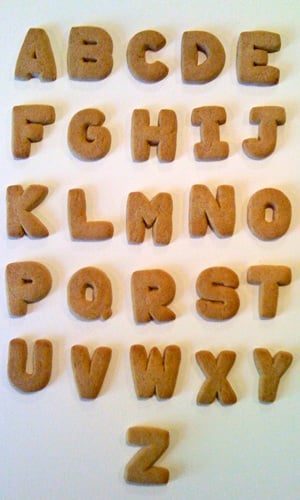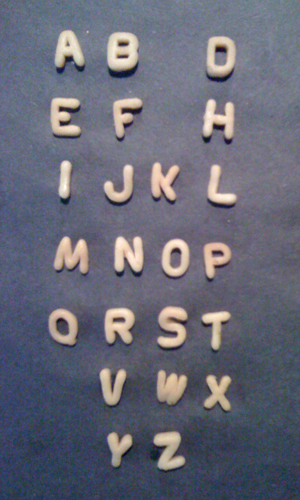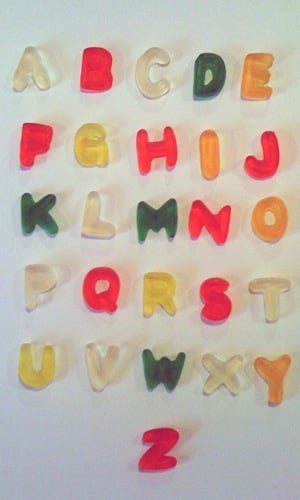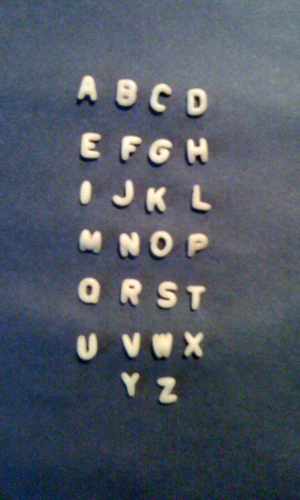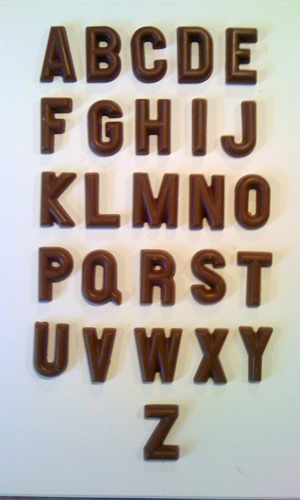
Fonts on Friday: Food Fonts
What better time to round up new typefaces than on Friday. Not only is "Fonts on Friday" alliterative, but showcasing new fonts also seems like a good way to end the week.
Looking around for fonts to feature this week, I came across the
Pancake Font" by Dutch foundry
DTM.
The font is crafted, as you can see, out of actual pancake batter. (The black dots are dried fruit: "In Holland, most of us put raisins on top of the pancakes and eat them with sugar or stroop," the site says.) Some of the letterforms could be crisper in my opinion. Nonetheless, Pancake is a script face that lends itself well to breakfasts and brunches, and when used with a restrained hand, special dinners.
A day or two later I was rummaging through some papers and found a page I had torn out of the old I.D. magazine. The date of the article is not intact but I'd guess it to be nearly 20 years old. In this article, the author, a young Jonathan Hoefler with whom I was friends at one time, compared two fonts from the same family: Alpha-Bits Regular and Frosted Alpha-Bits. Hoefler observed the font when set in a bowl of milk to see how its point size changed — a bit like Multiple Master fonts — but he noticed the letterforms changed as well.
Click on the image to see the original full page
He wrote: "And though the weight of the design is user-adjustable (proportional to its saturation with milk), the resulting shapes recall a distinctly American vernacular in letterform design, from the imperfect American Typewriter, through the bloated Cooper Black, to (alas) the self-eroding caustic Biomorph."
The coincidence of finding two examples of edible typefaces in the same week nudged me toward unveiling my own food fonts. I haven't yet identified the faces, so if you have an ideas, please let me know. Here are the five that I have so far.
This is a decidedly American font, although it bears resemblance to some Swiss typefaces. It's gaining popularity given the rise of its foundry — Trader Joe's. The Cinnamon Schoolhouse Cookie font is a sturdy sans serif that doesn't back down from difficult layouts, like plastic shipping tubs. Very few letters arrive broken and the characters withstand being dipped in coffee. Schoolhouse Cookie works well in a wide variety of settings, but does best used sparingly after school or work.
The ubiquity of this utilitarian font undercuts its use in many design situations. It's dull and overused, and as such the Campbell's Alphabet Soup font has fallen out of favor by any serious typographers. It's become the default font of office workers, PowerPoint marketers, and CPAs. Soup has seen so much use that a few characters are missing due to sloppy and dodgy casting — or perhaps an underpaid admin may have eaten the missing letters. I'd have to open another can to complete this set of glyphs.
This wildly colored novelty font is gimmicky and crudely made. Quite frankly Haribo Alphabet Letters Gummi Candy is a novelty font, one that is best used for birthday invites and Mother's Day cards, or situations where the application of too many Photoshop filters is welcome. One key to using this font is to avoid tight kerning as the characters will lose their integrity and letter pairs look like an indistinct blob. If you do plan to use it, beware: it has a way of sticking to your teeth.
The sincerity of the SpaghettiOs Original A-Z's font cannot be denied. It is humble, almost innocent, in its plain yet serene letterforms. Set at small sizes this all-caps font excels and is much preferred to the small caps setting of almost any typeface. It's real charm is obvious when dehydration sets in (not shown) and these tiny fonts take on an almost sprightly yet desiccated appearance. One drawback to Spaghetti-Os is the amount of repetitive and unusable O glyphs that fill out the can.
This chocolate font was a serendipitous find and the treasure in my library — until I ate it. I found the unnamed, unused font buried beneath holiday detritus at a discount store. The only mark it bore was that it was made in Germany, although its chiseled, three-dimensional appearance suggests a New World influence. Its distinct, clean letterforms need to be used in settings that demand authority and grandeur, such as an initial or drop cap, or a headline in a political flyer.
Food fonts are the heart, soul, and stomach of typography and have been, with a few exceptions, overlooked by discerning typographers (Hoefler not withstanding).
However, I can't identify these food fonts. That's where you come in: Do you know what fonts these are? Their names and origins? On the page is a waterfall of type, from 96pt to 36 pt. Please help and give me your guesses in the Comments section.
And if you find any more food fonts (I know there's a pasta font out there somewhere) do let me know.